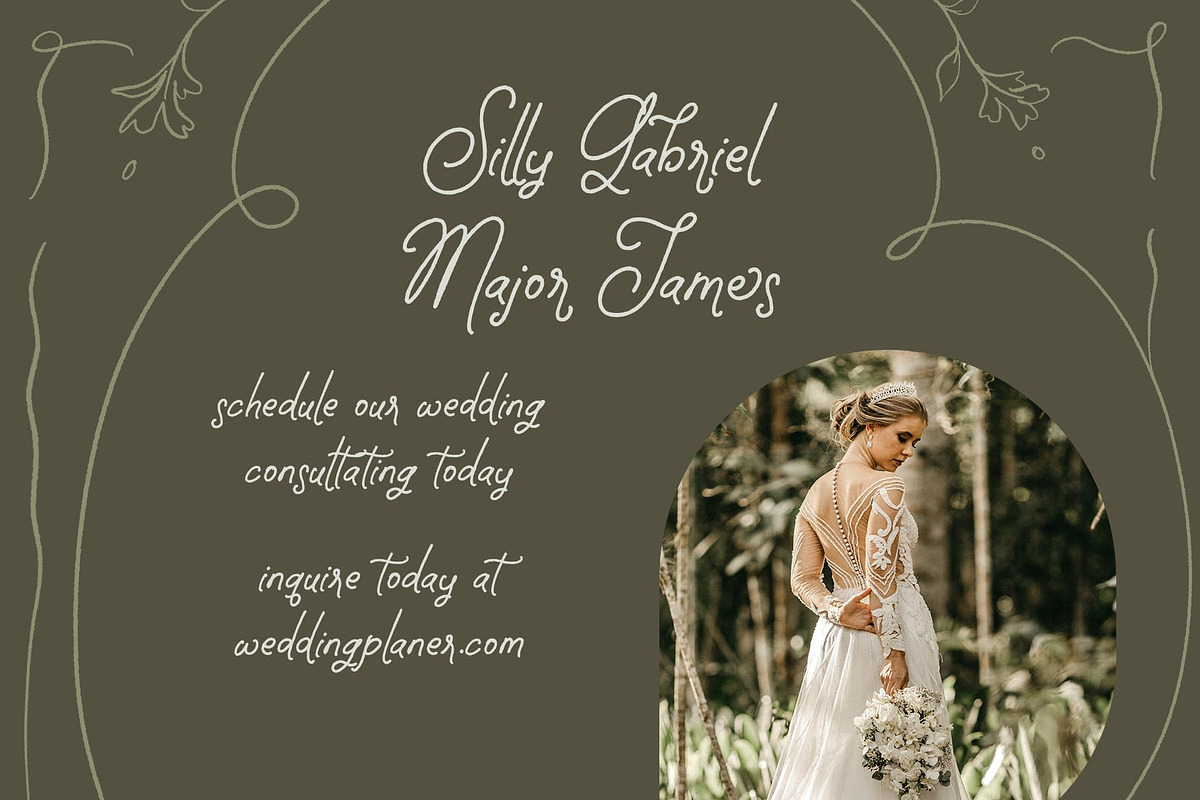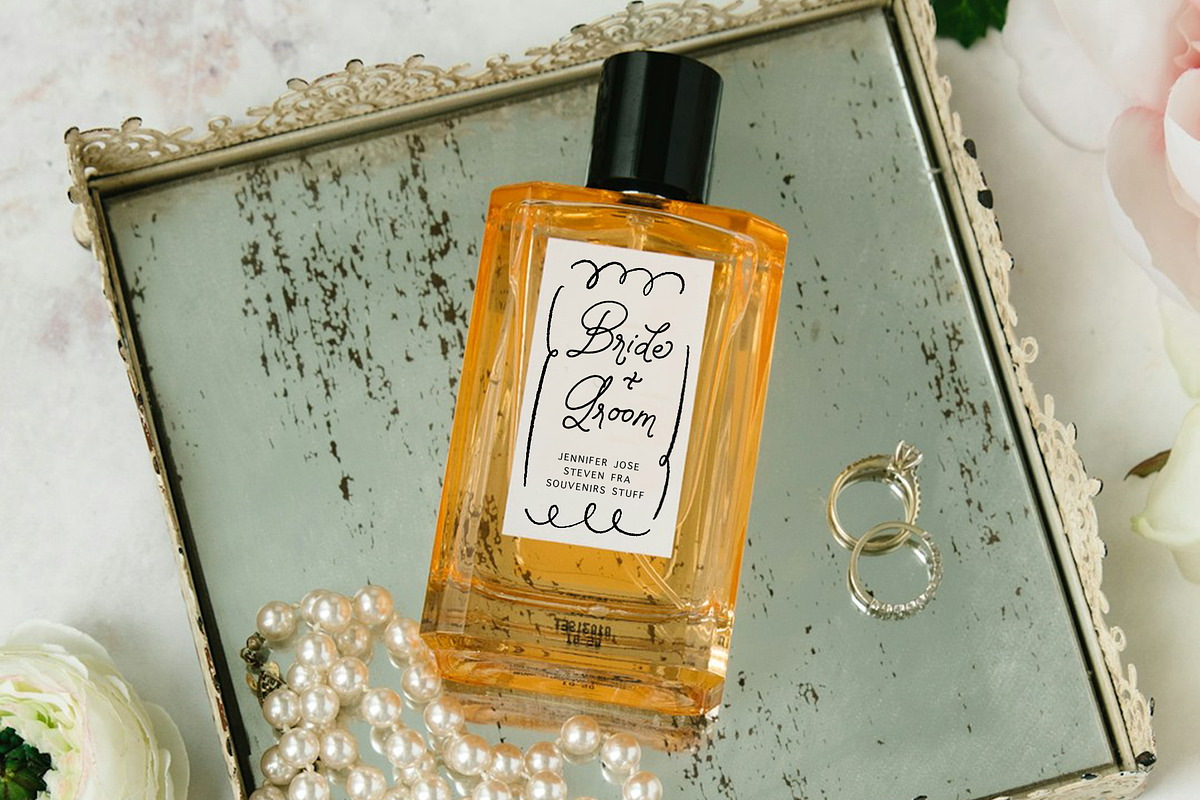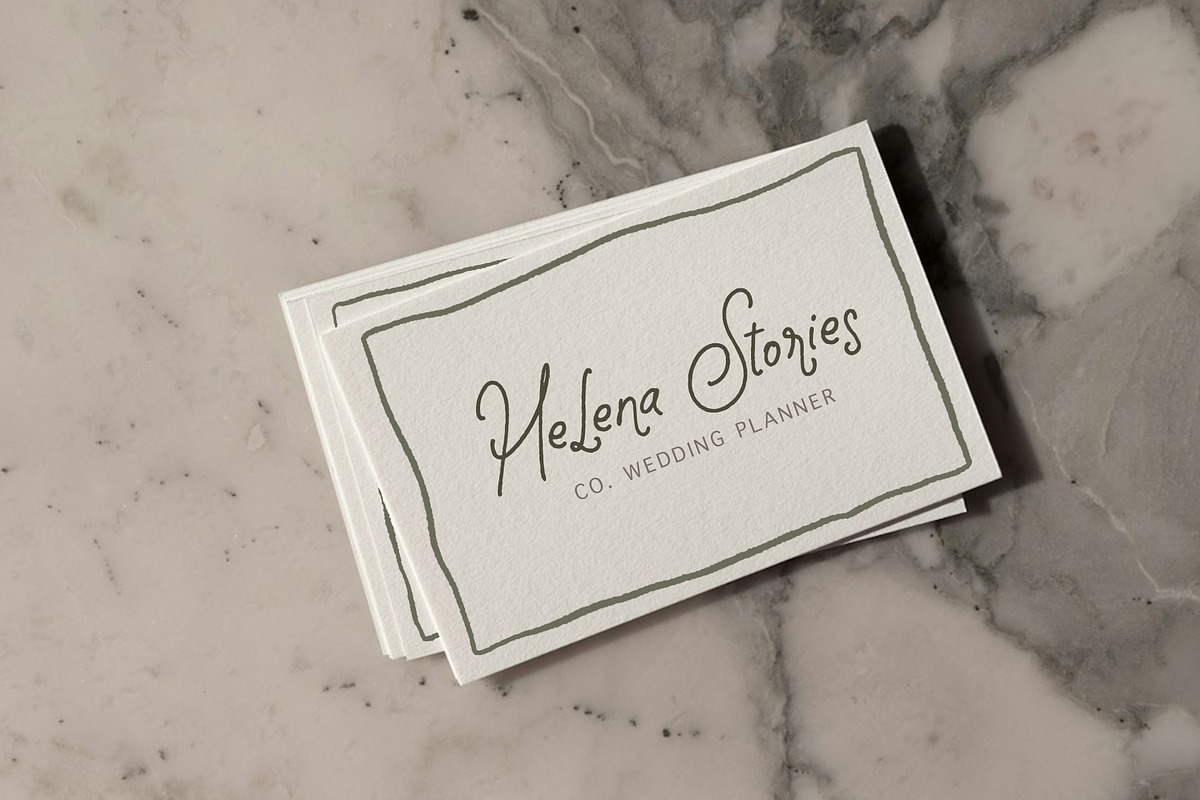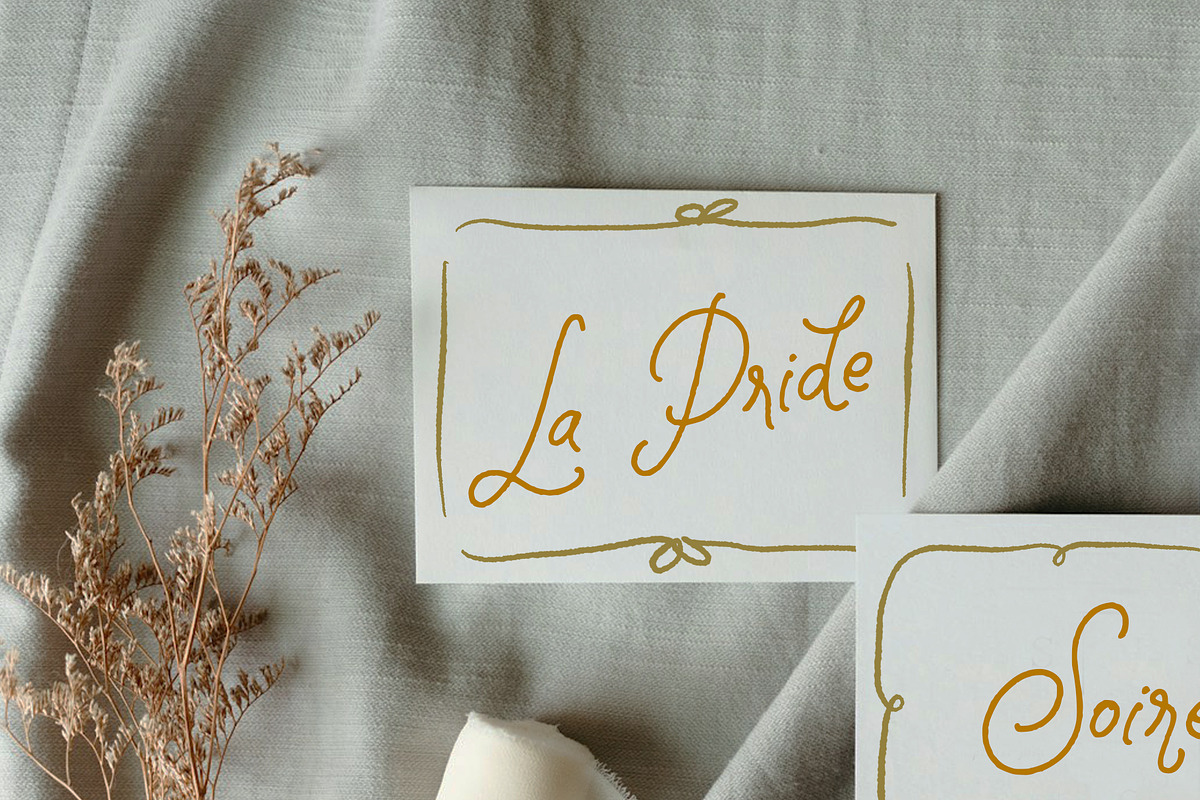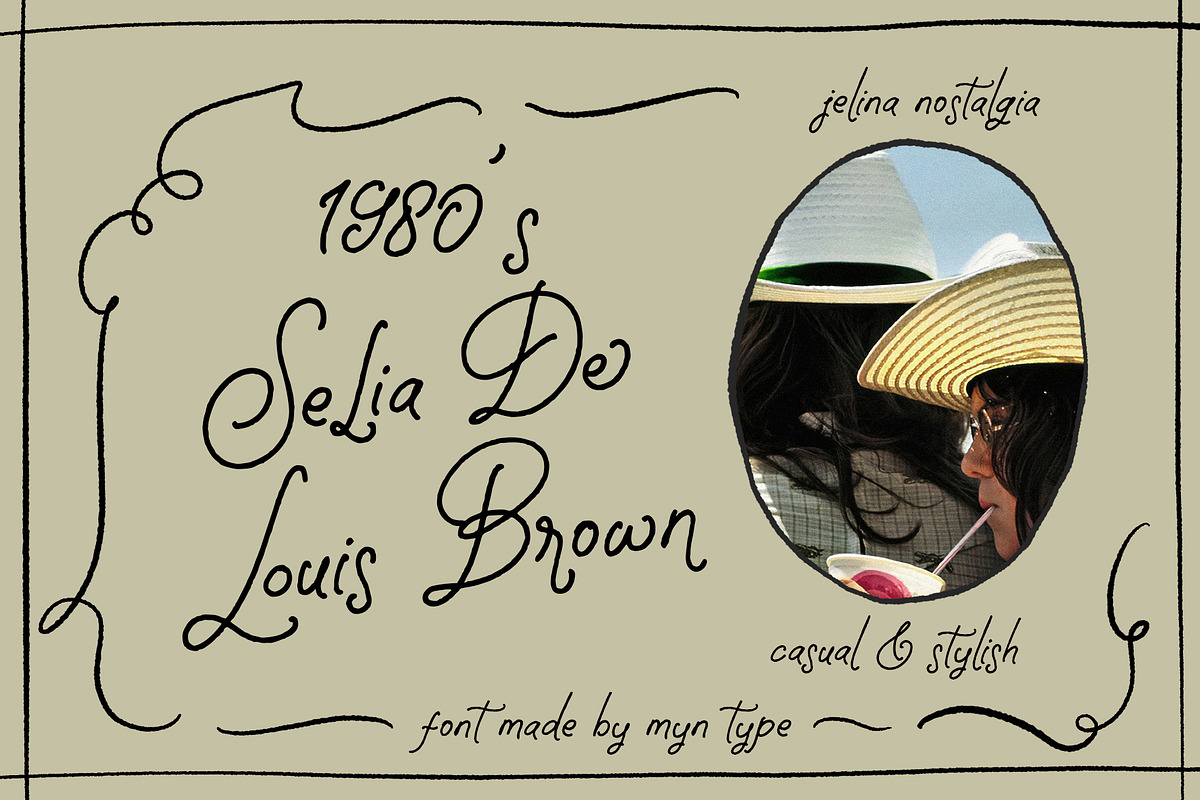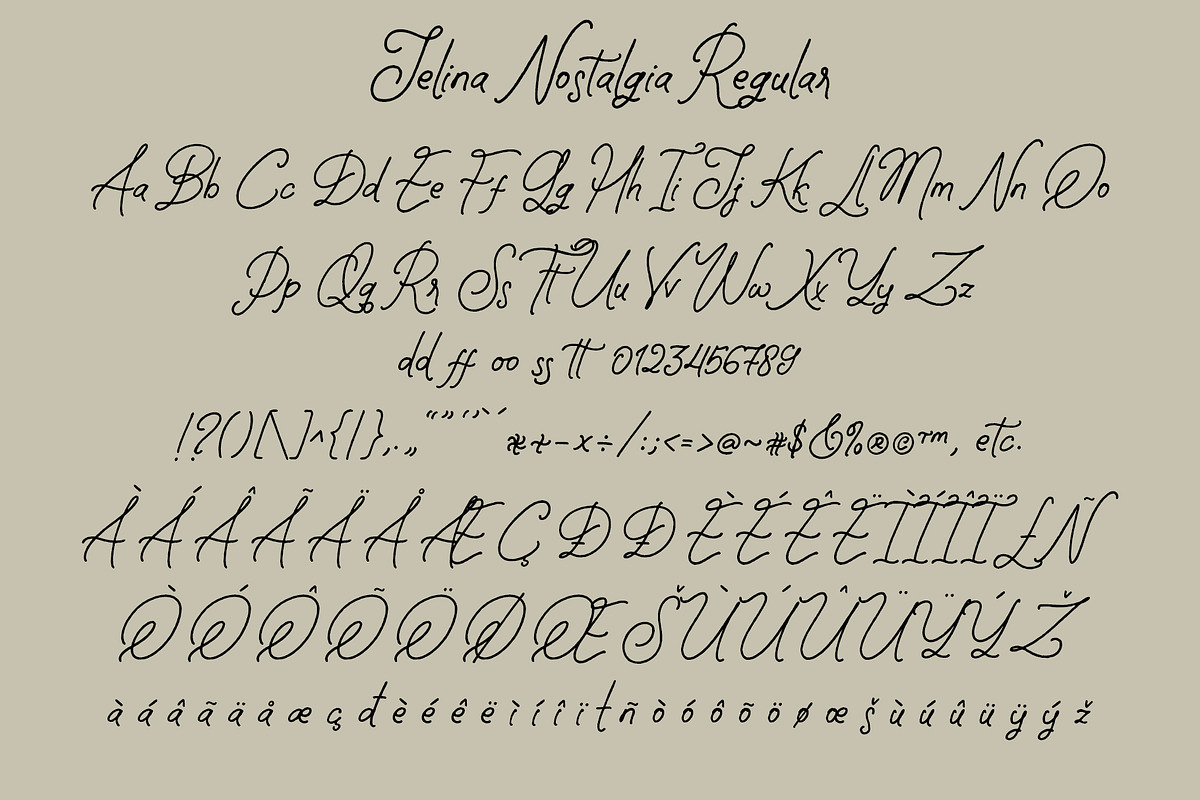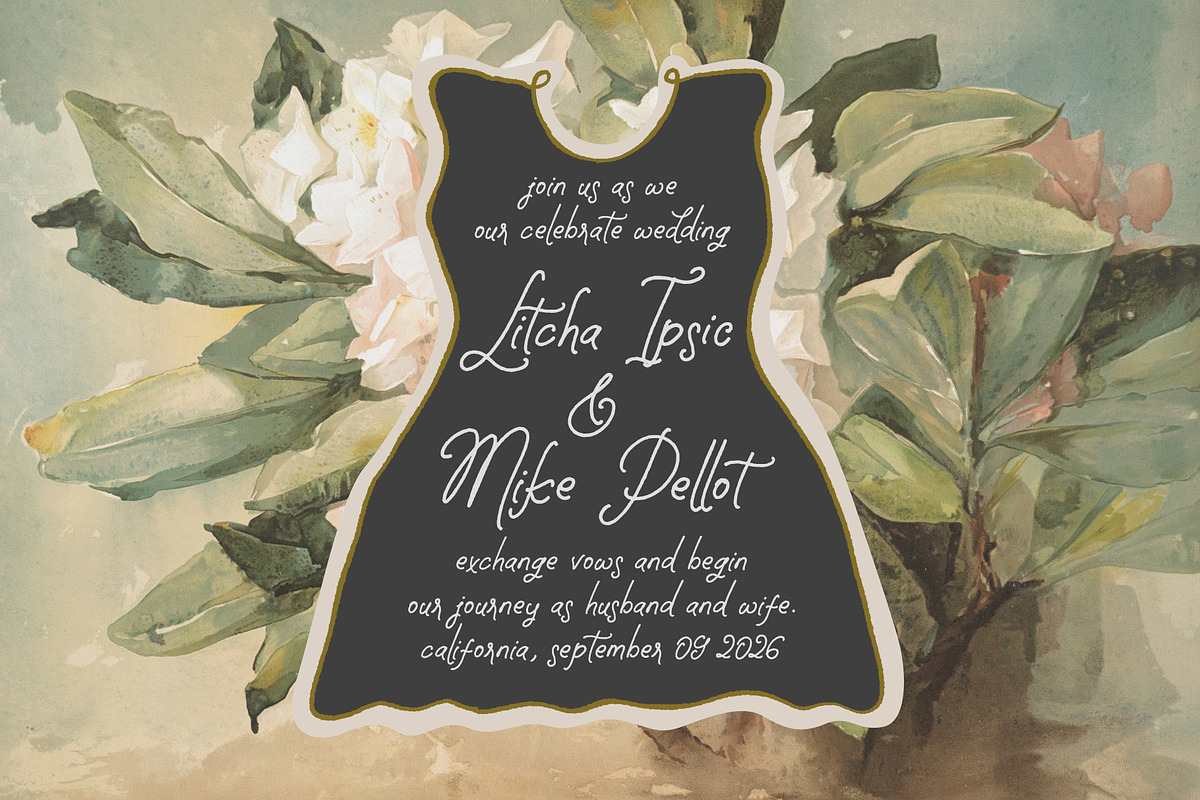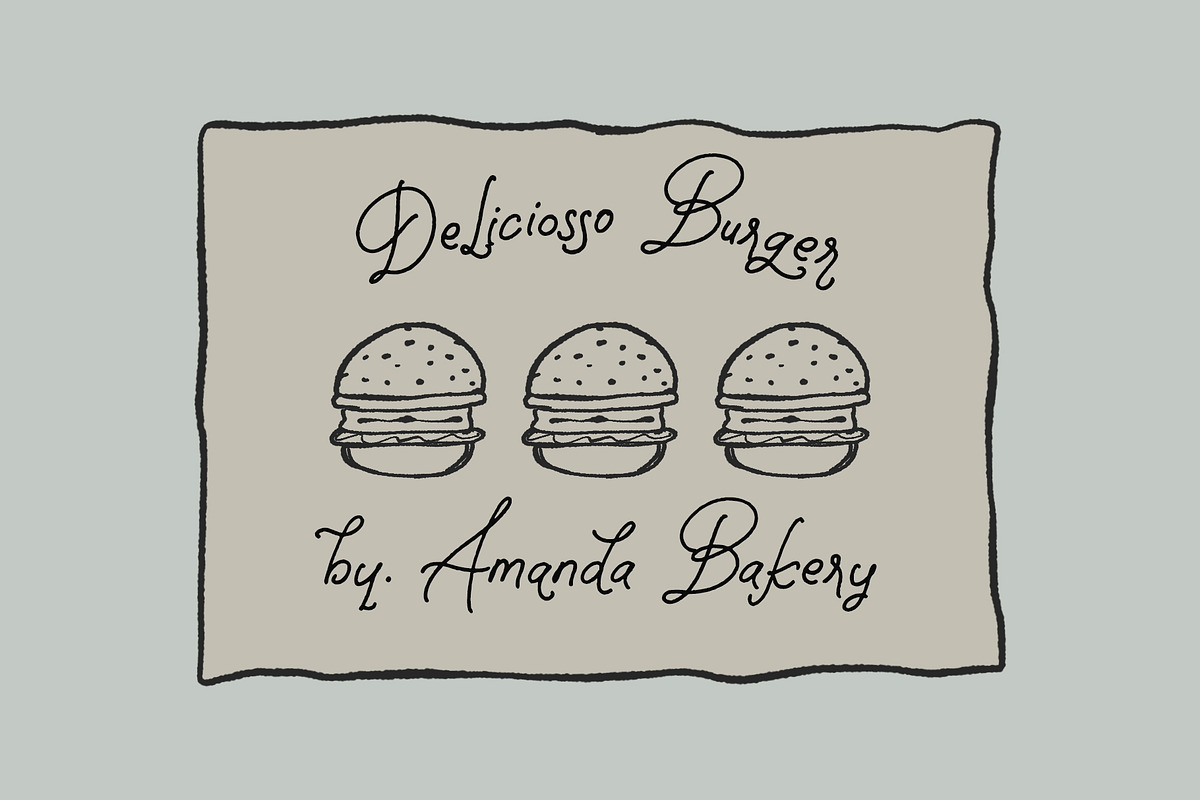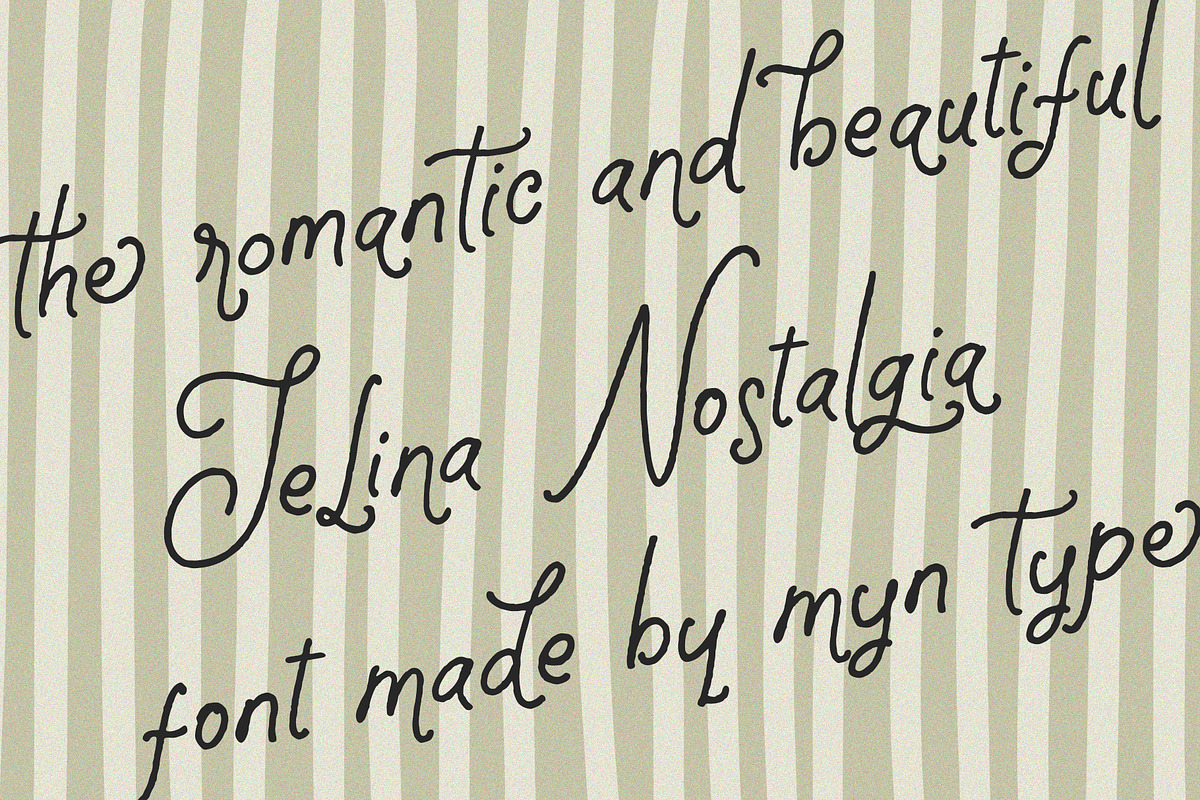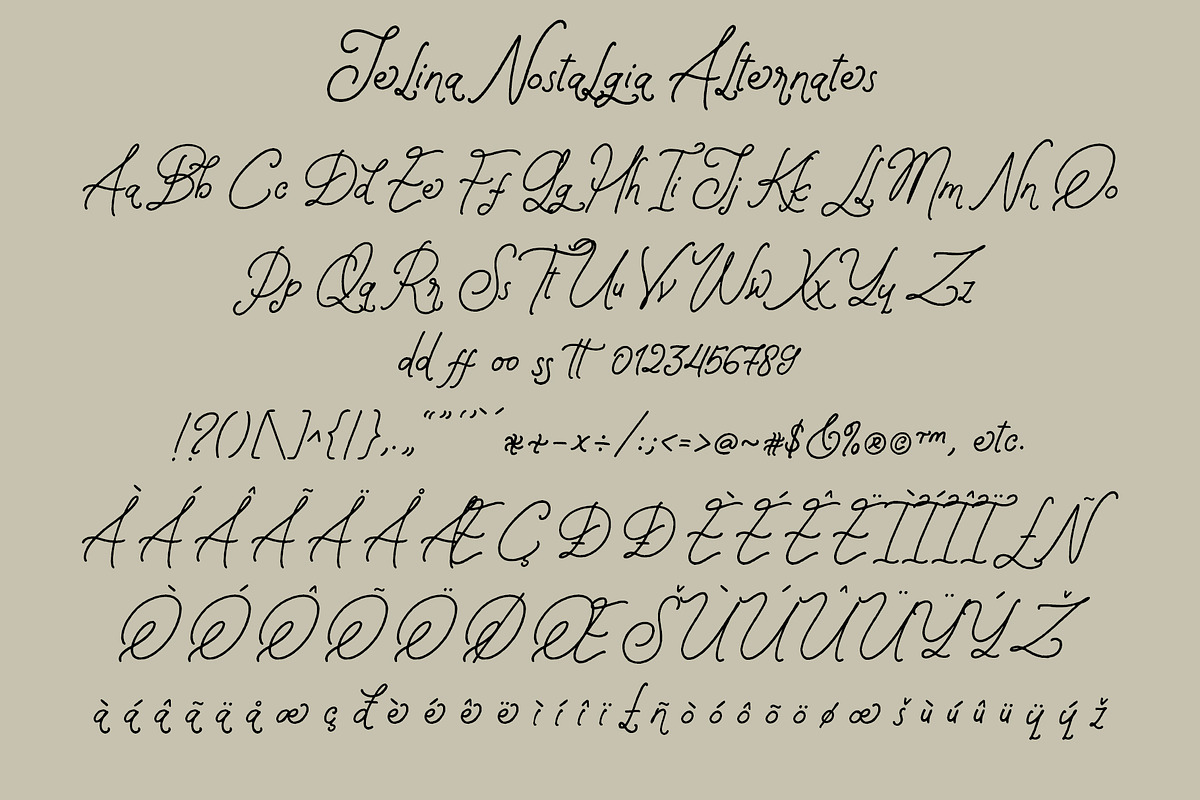
Jelina Nostalgia - Cozy Handwritten
Jelina Nostalgia is typeface font created with a touch of flowing natural hand strokes, a rough effect that is not excessive giving a classic, casual and natural aesthetic. Plus the alternate letters that have graceful curves make the impression more prominent and beautiful.
Perfect for wedding design, invitation design, branding, logos, display productn and any design elements that require a classic and casual touch.